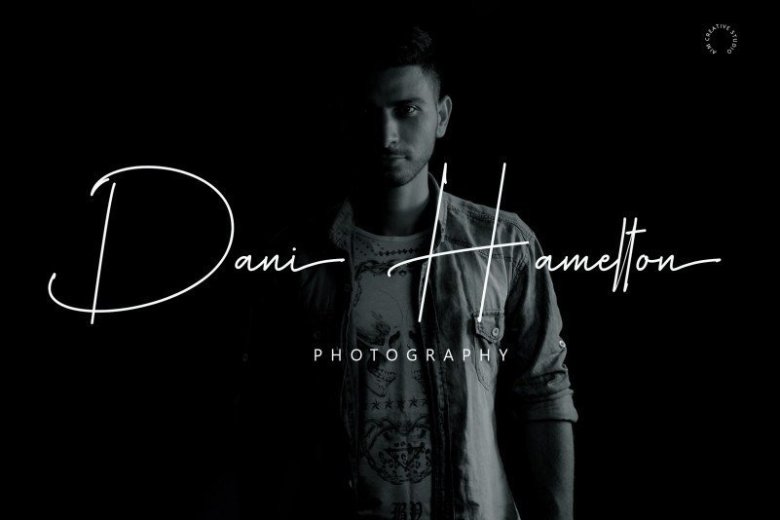
Renadar Signature Font
Renadar Font is a fashionable and sweet handwritten typeface that is perfect for moodboards, logos, blog posts, invitations, and so much more!
It looks beautiful when used for handwritten quotes and logos, and can even be used to make fun products like mugs or t-shirts.